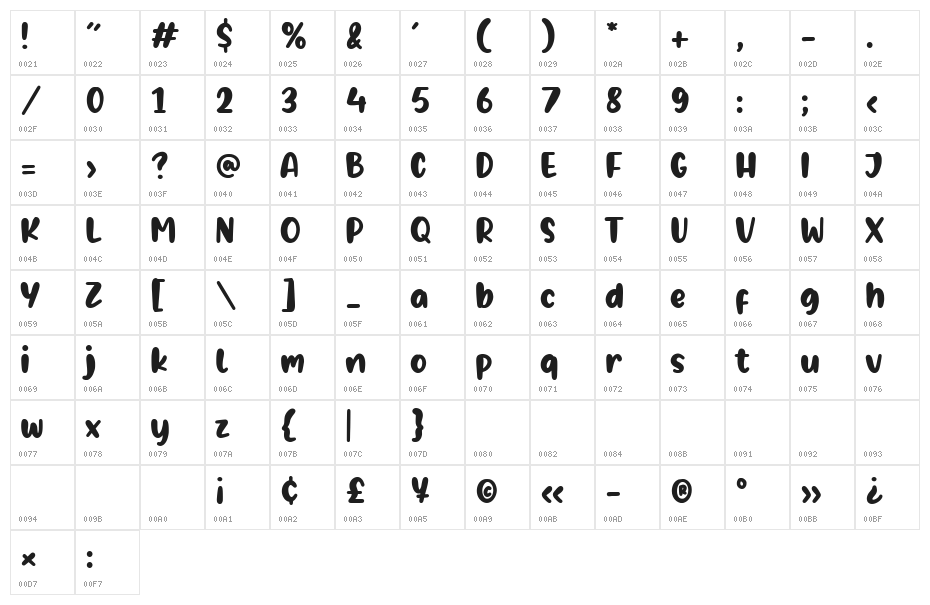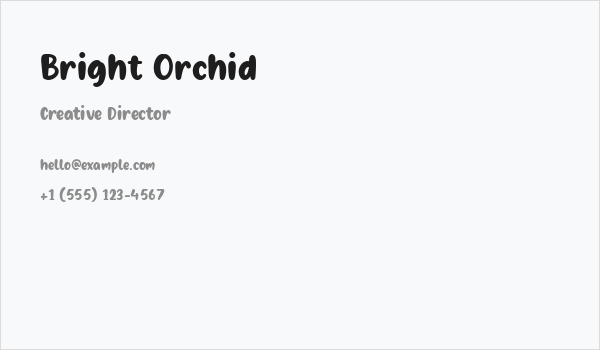
Bright Orchid Font
Bright Orchid Description
This playful and bold font features rounded, thick strokes that give it a friendly and approachable appearance. The characters are slightly irregular, adding a touch of whimsy and personality. The uppercase and lowercase letters maintain a consistent style, with smooth curves and a uniform thickness that enhances readability. Numbers and special characters are designed with the same playful aesthetic, making this font versatile for various creative projects. Its boldness ensures it stands out, while the rounded edges soften its overall look, making it suitable for both fun and professional applications.
| Proposed Projects | Ideal for children's books, playful branding, greeting cards, and social media graphics. |